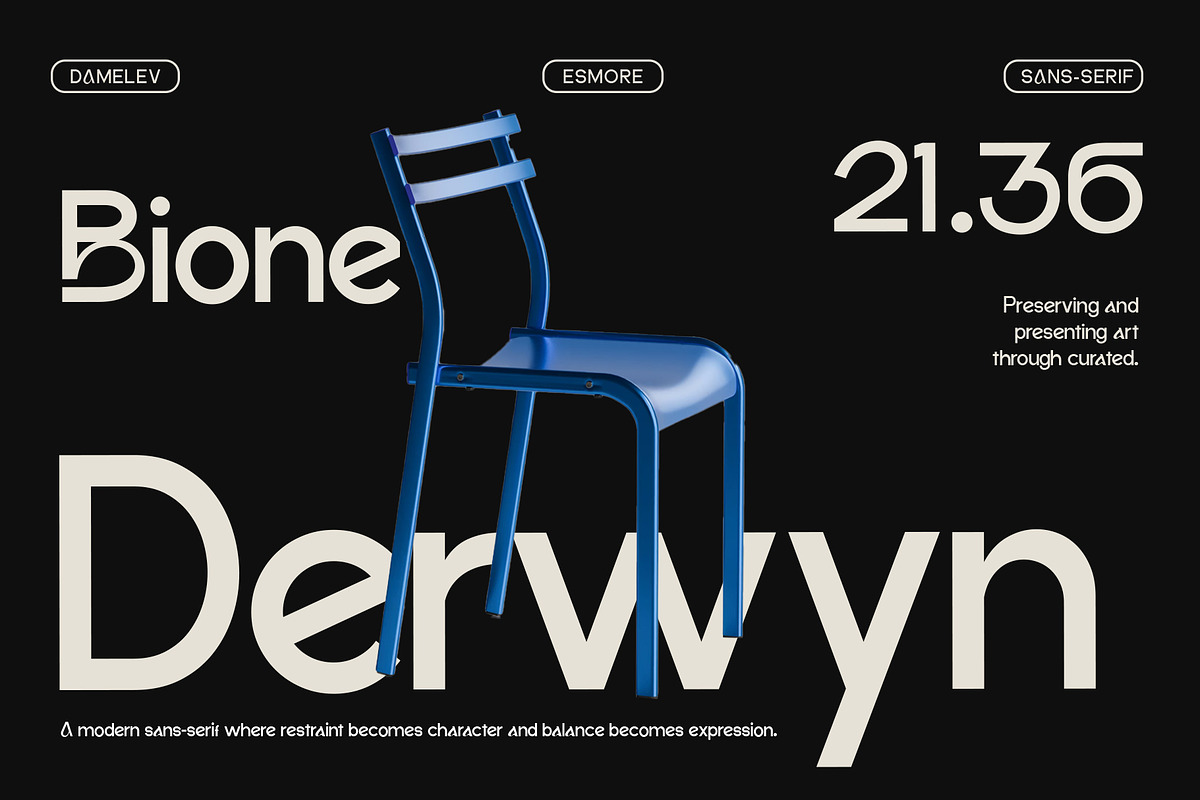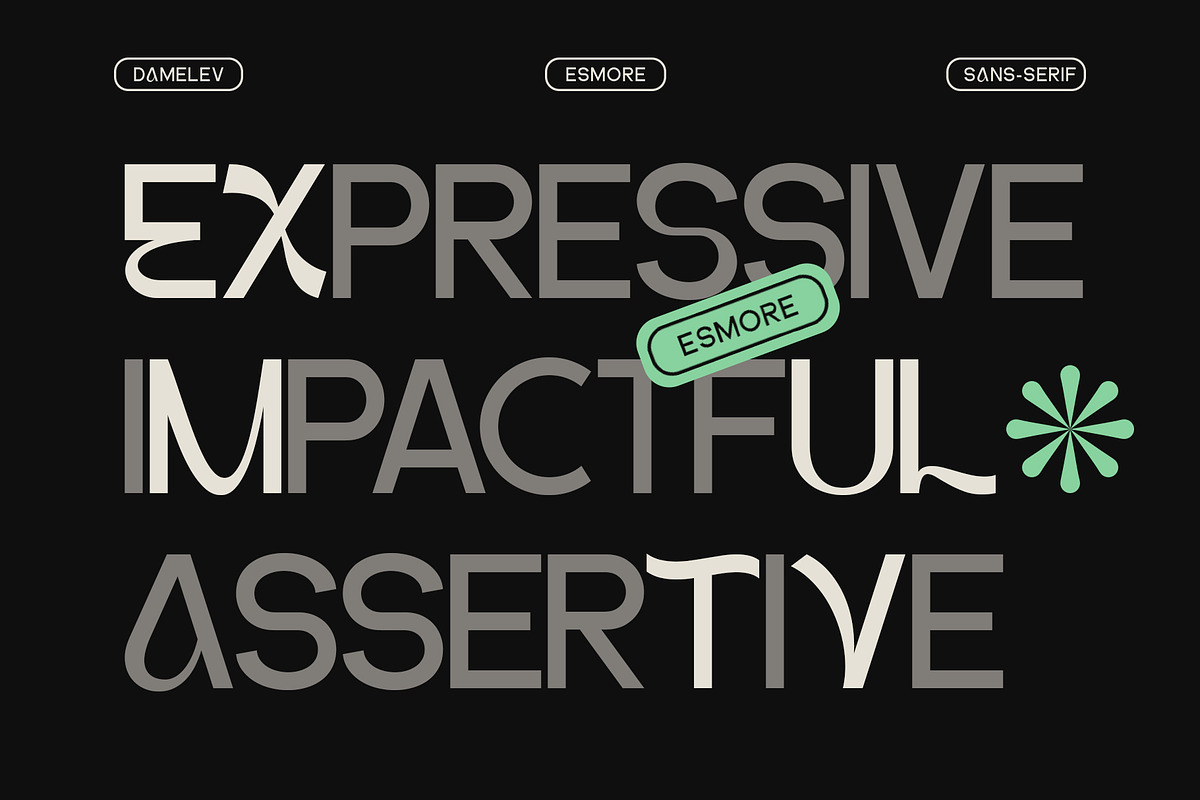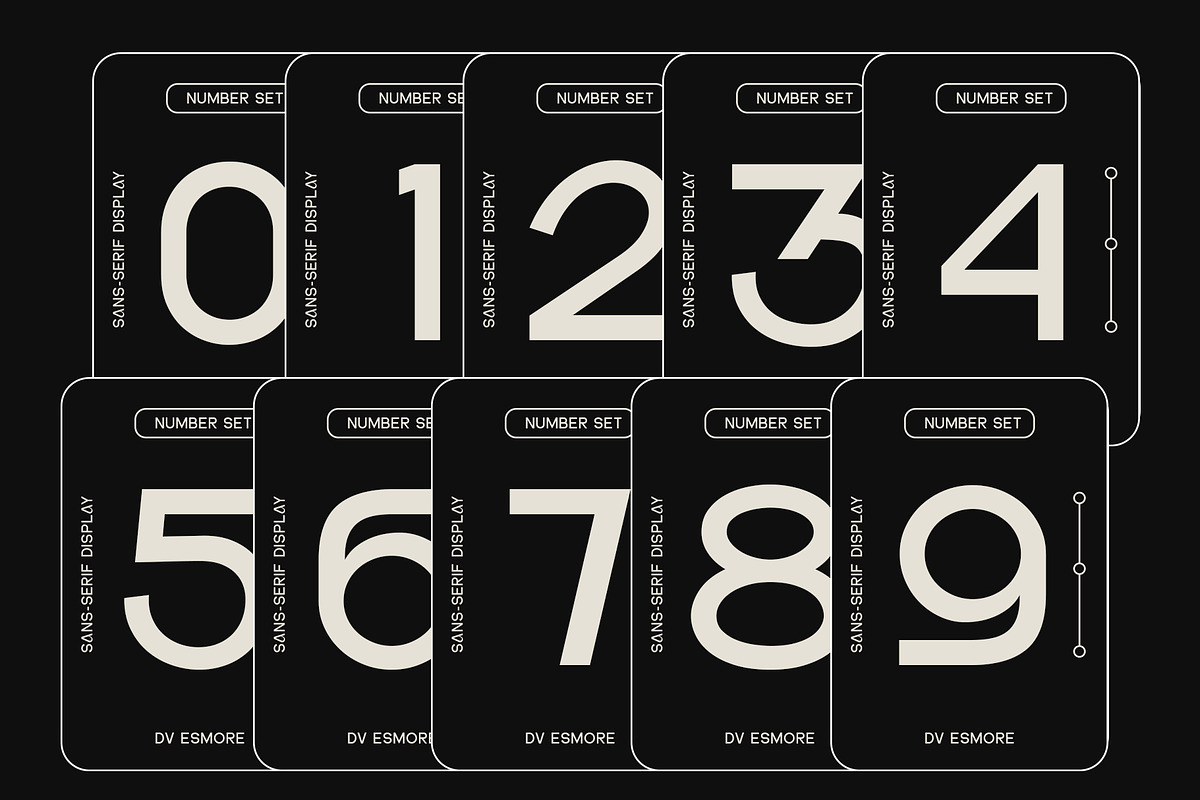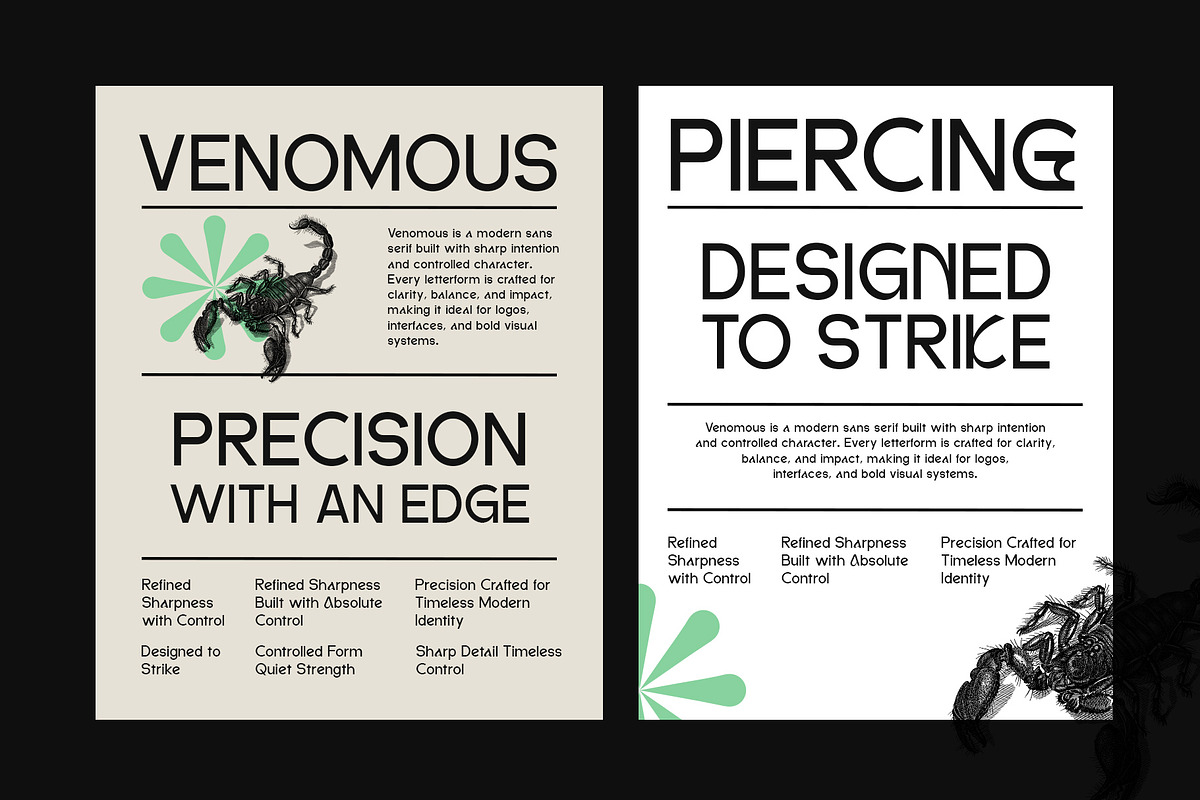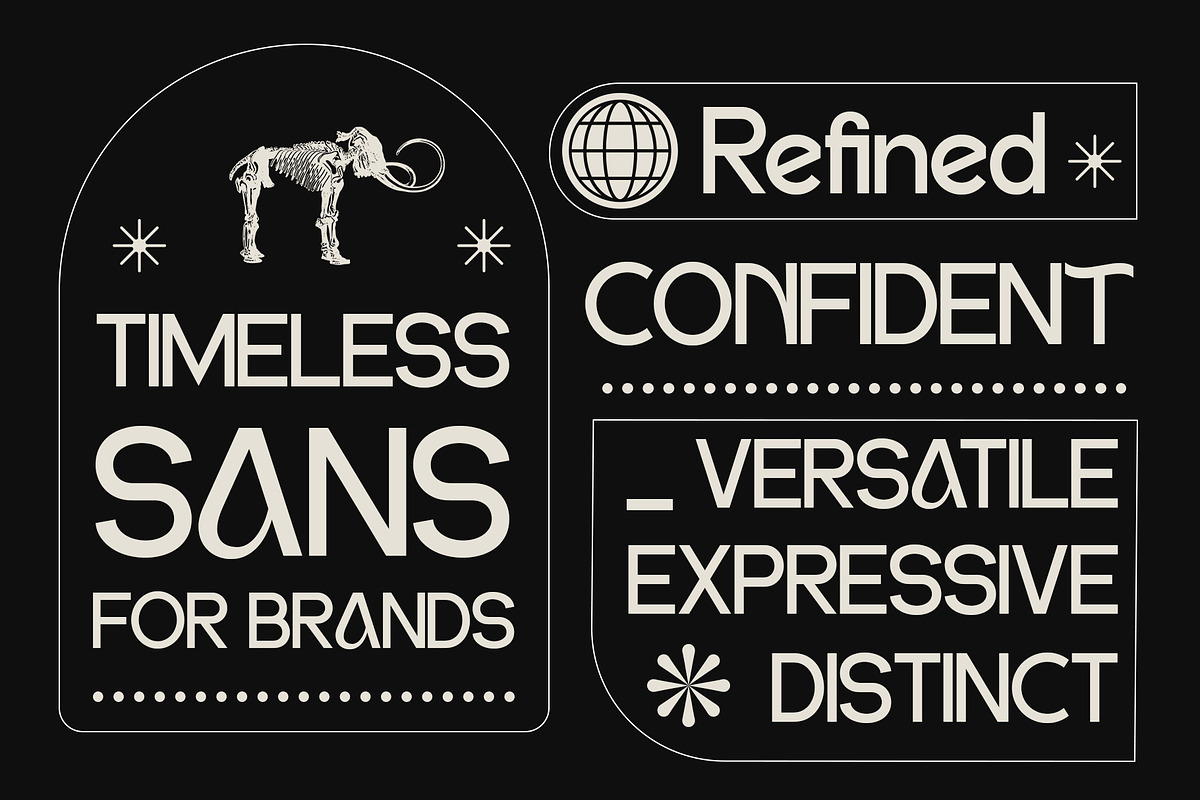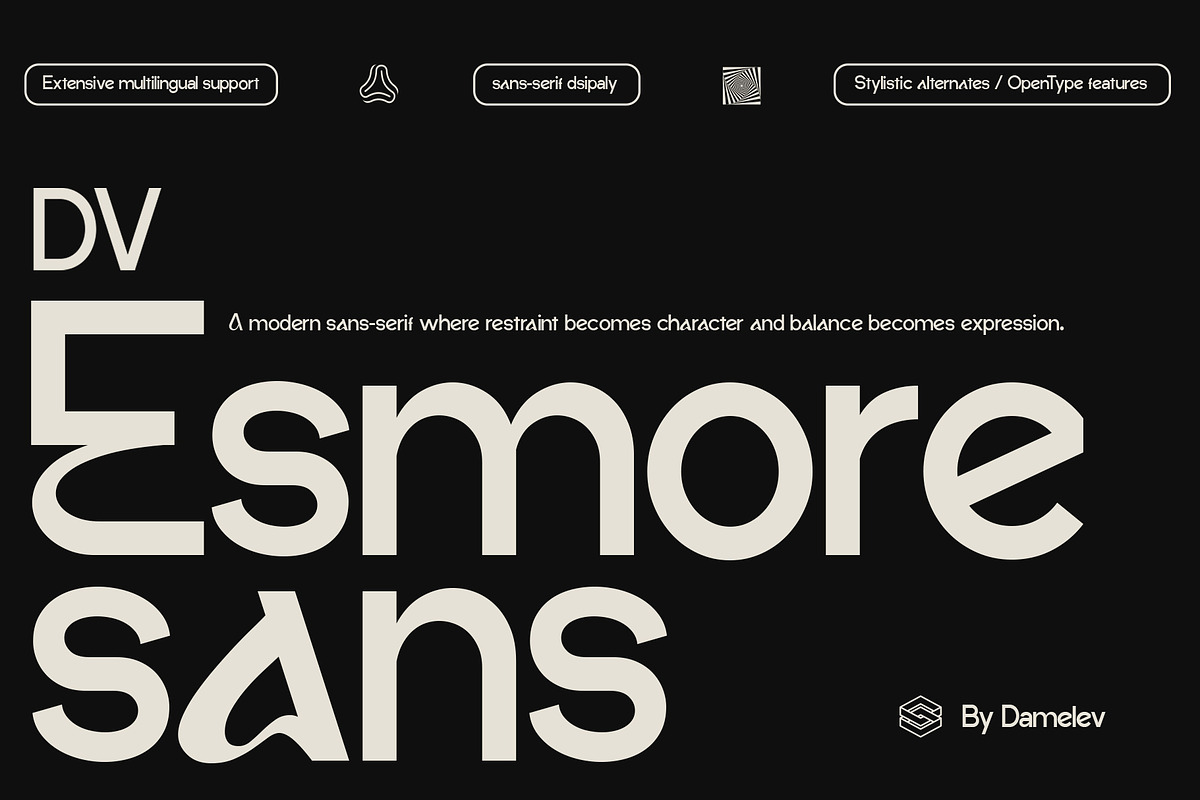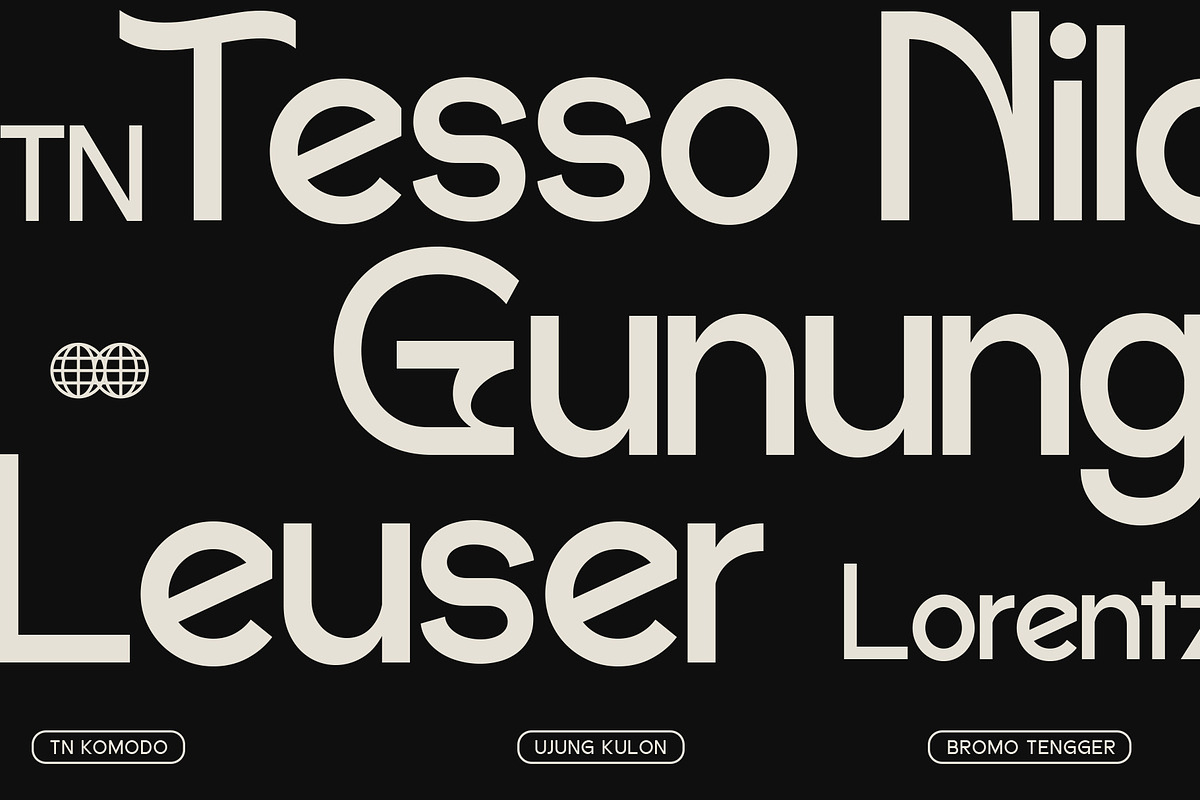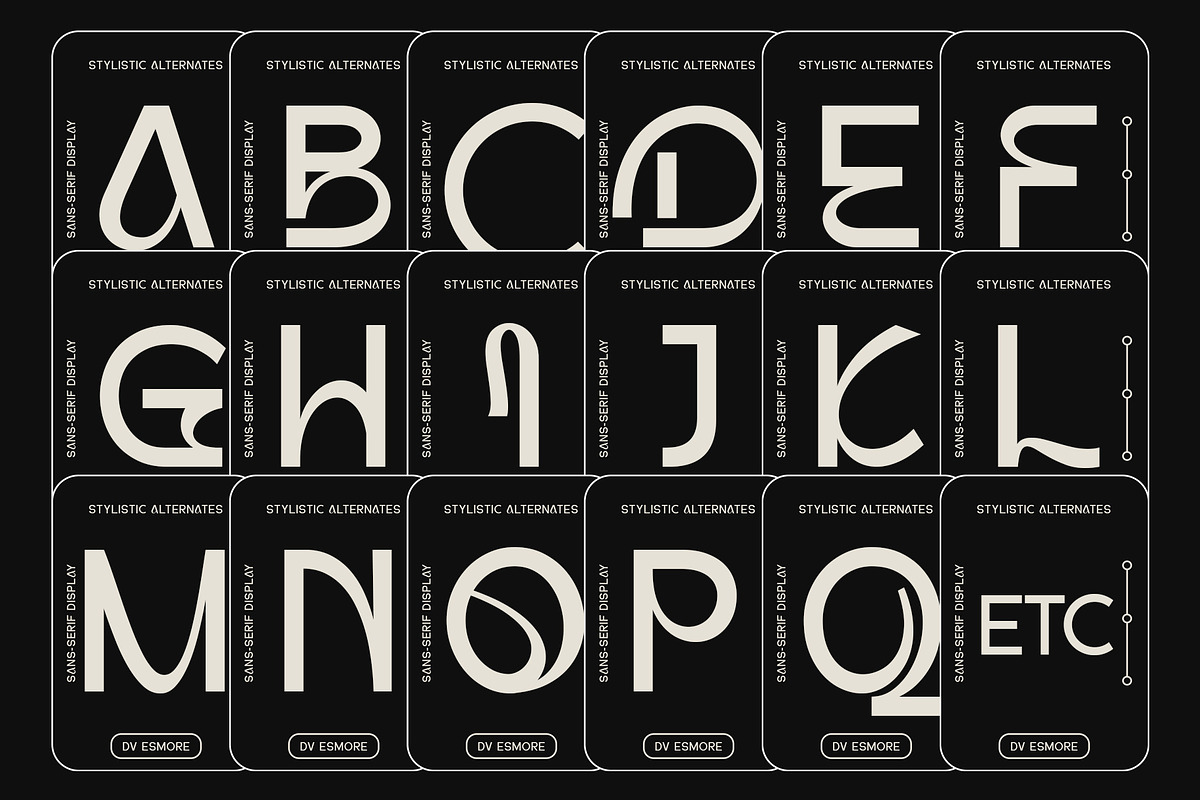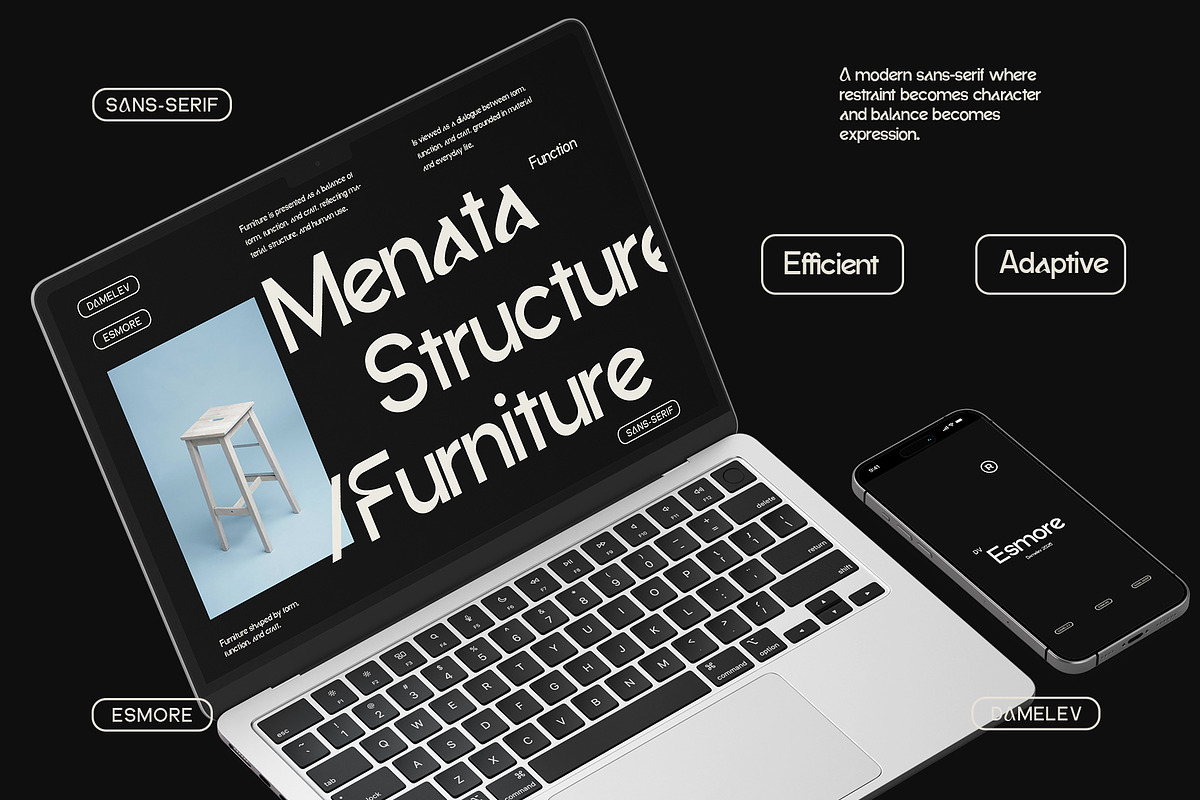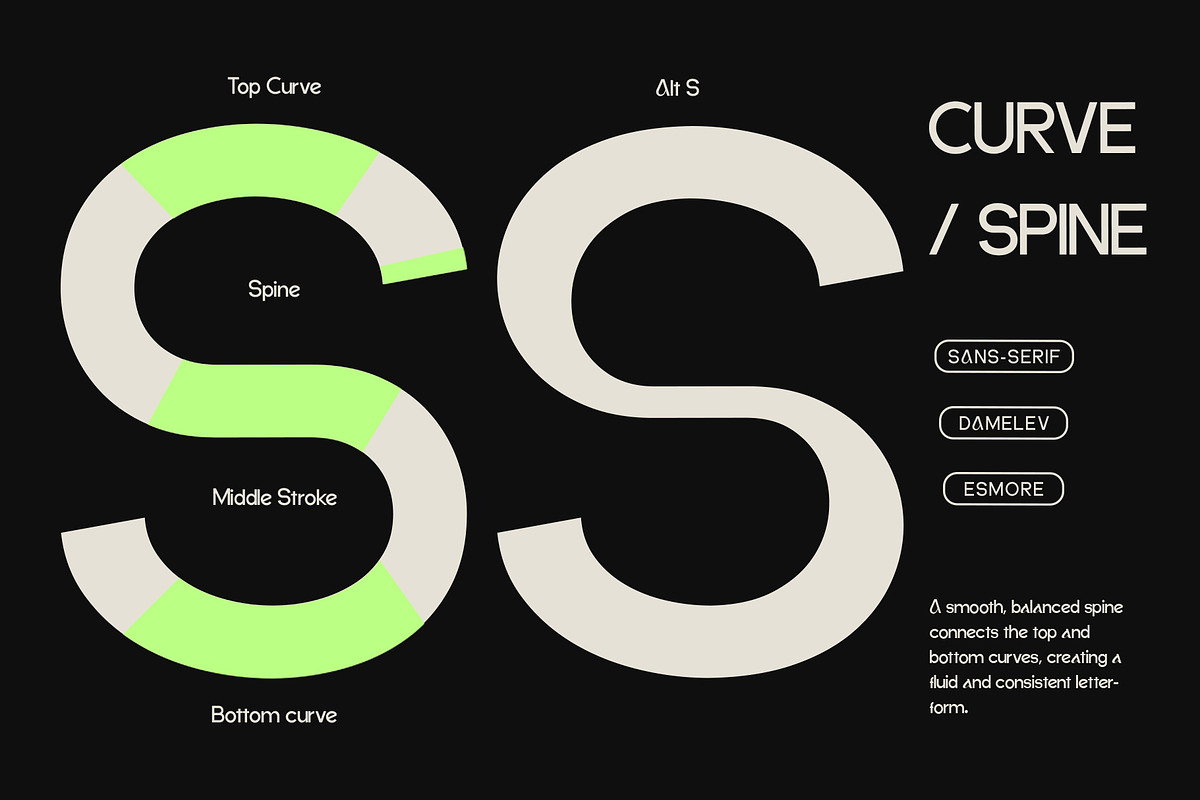
DV Emore
DV Esmore Sans is a contemporary sans serif display typeface created for strong visual impact. Its bold construction and clean geometry make it an excellent choice for headlines, branding, and large-scale typography.
Designed with clarity and character in mind, the font delivers a modern aesthetic while maintaining high readability at display sizes. It performs well across print and digital applications, including editorial design, posters, logos, packaging, and social media.